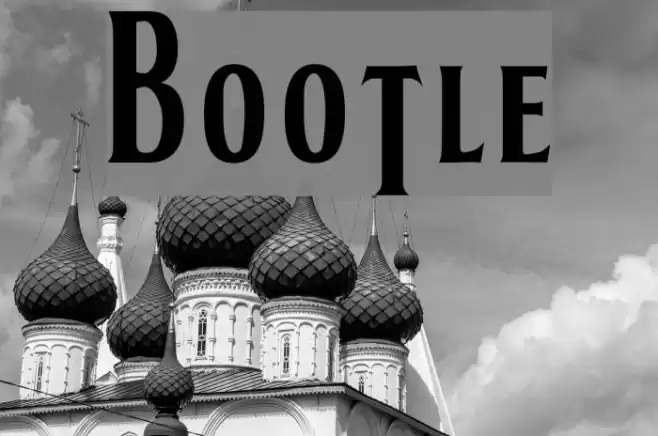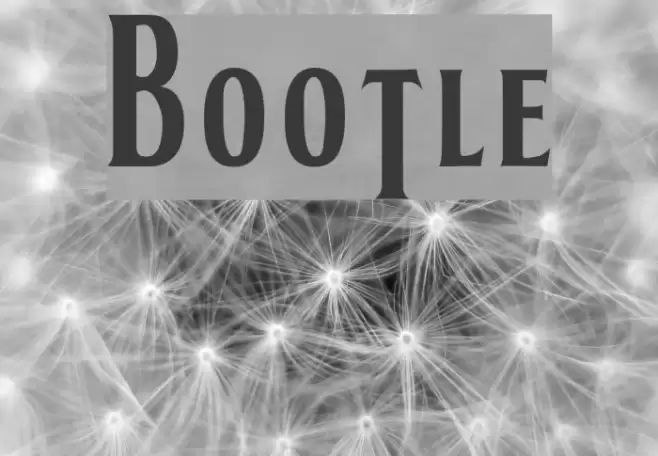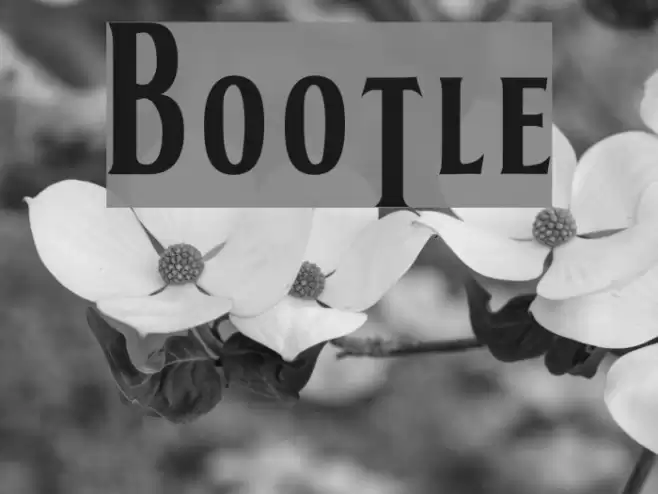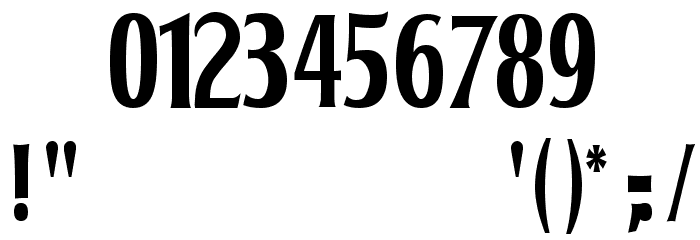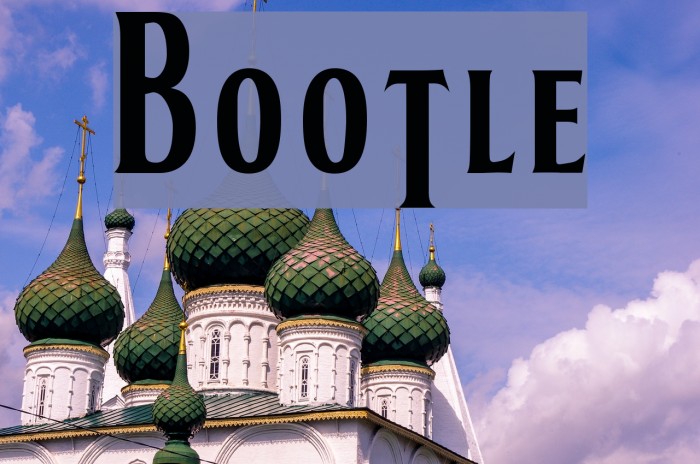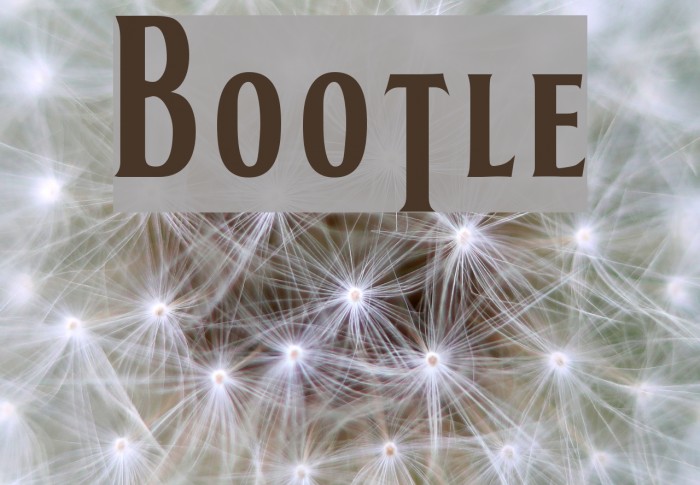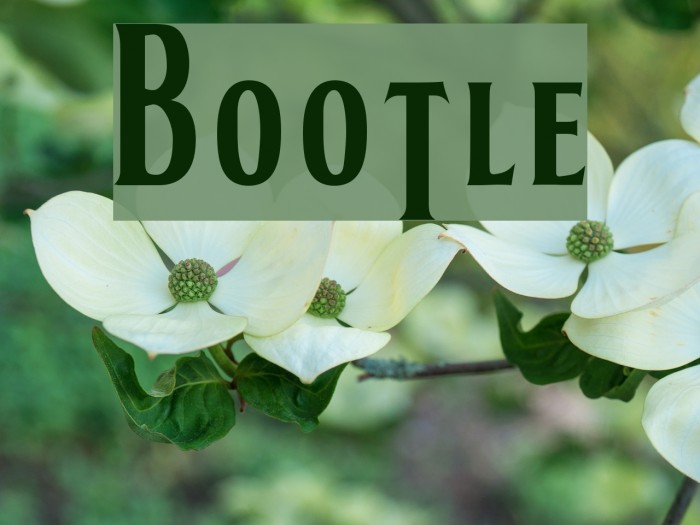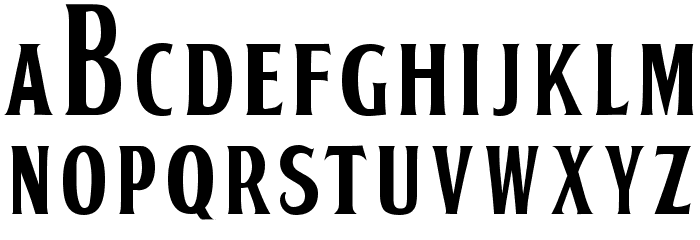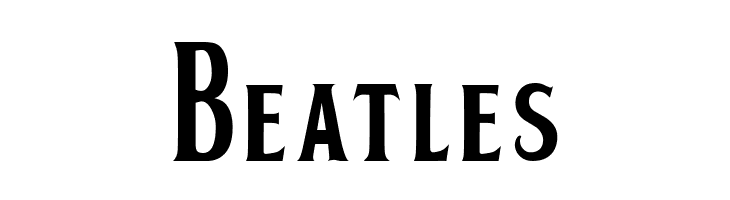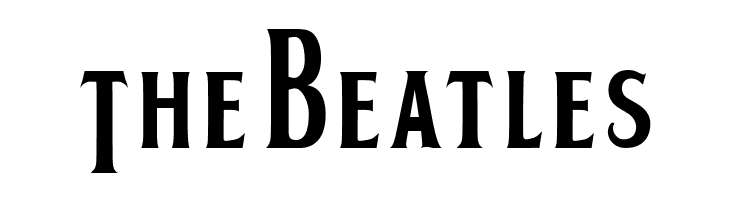
BOOTLE Font
BOOTLE Description
This font features a bold and striking appearance with a classic serif style. The characters are well-defined with a moderate contrast between thick and thin strokes, giving it a traditional yet robust look. The serifs are prominent, adding a touch of elegance and formality. The uppercase letters are slightly taller than the lowercase, providing a balanced and harmonious visual appeal. The numbers are consistent with the overall style, maintaining the same serif characteristics. Special characters are distinct and integrate seamlessly with the rest of the font, ensuring versatility in various applications.
A bold, classic serif font with moderate contrast and elegant serifs from Capitals fonts.
- Proposed Projects: Ideal for book covers, formal invitations, branding, and editorial design.
- Overall Style: Classic